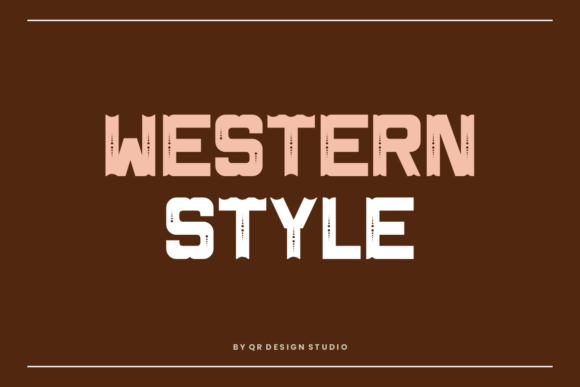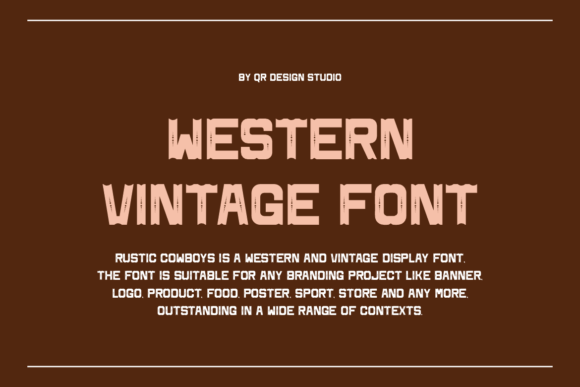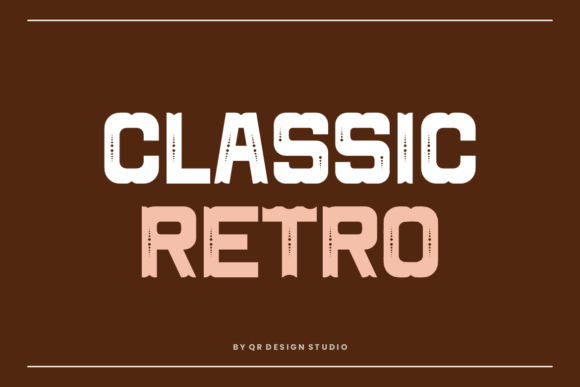
Introduction to Rustic Cowboys Font
Gaming is a bold and authentic decorative font with a Western style.
This font is suitable for any branding project like logo, sport, and many more .
Key Features of Rustic Cowboys Font
Why Choose Rustic Cowboys Font?
Rustic Cowboys Font offers exceptional quality and versatility, making it a valuable addition to your design toolkit. Whether you’re creating for personal projects or commercial use, Rustic Cowboys Font delivers professional results.